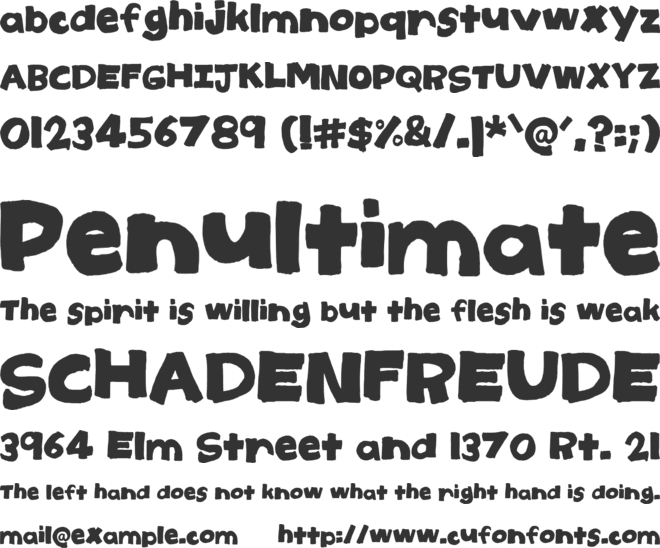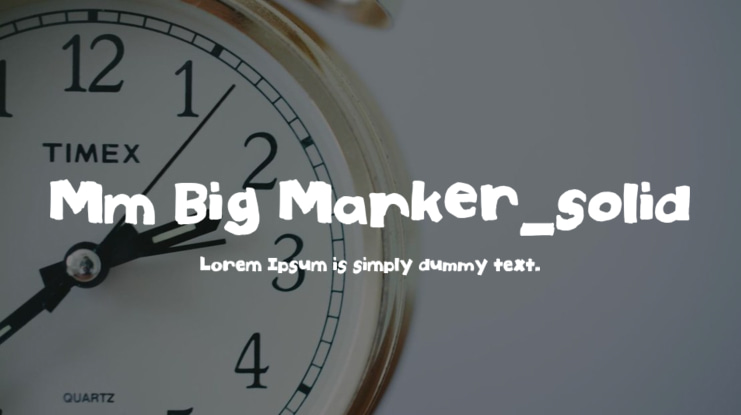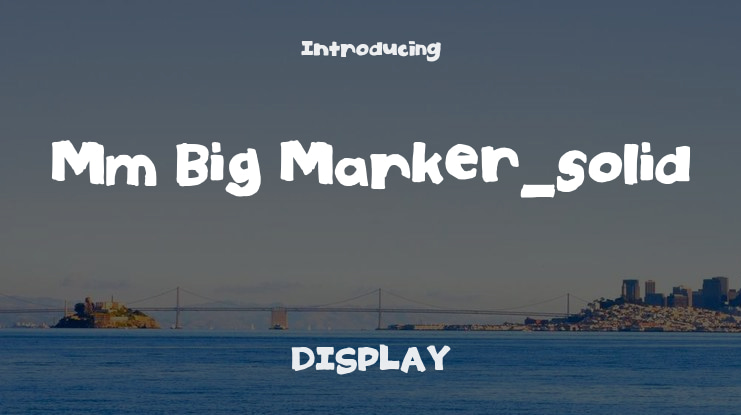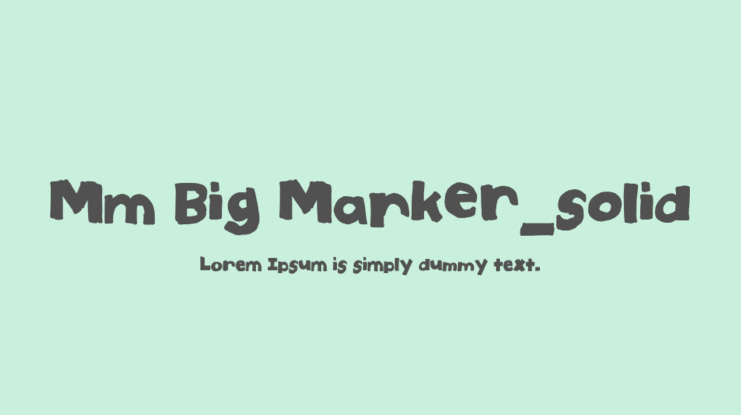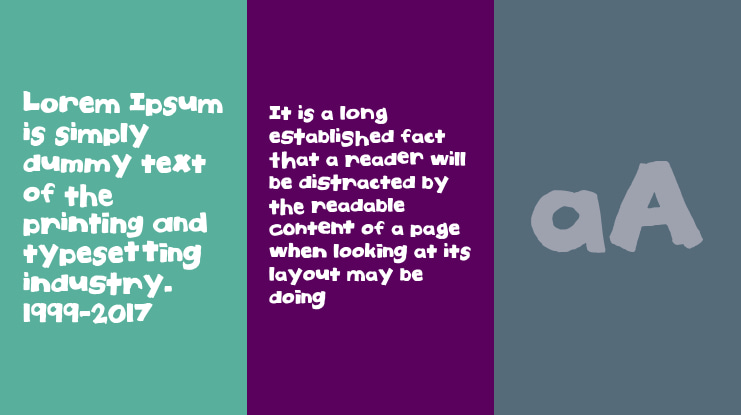
Mm Big Marker_solid Font
Big Marker is a fun display typeface featuring an alphabet inspired by my high school fat Sharpie days and all those home made fliers. This imperfect typeface is for every project that needs that old school Marks-A-Lot look. Can you smell it?
300+ glyphs.
MM Big Marker